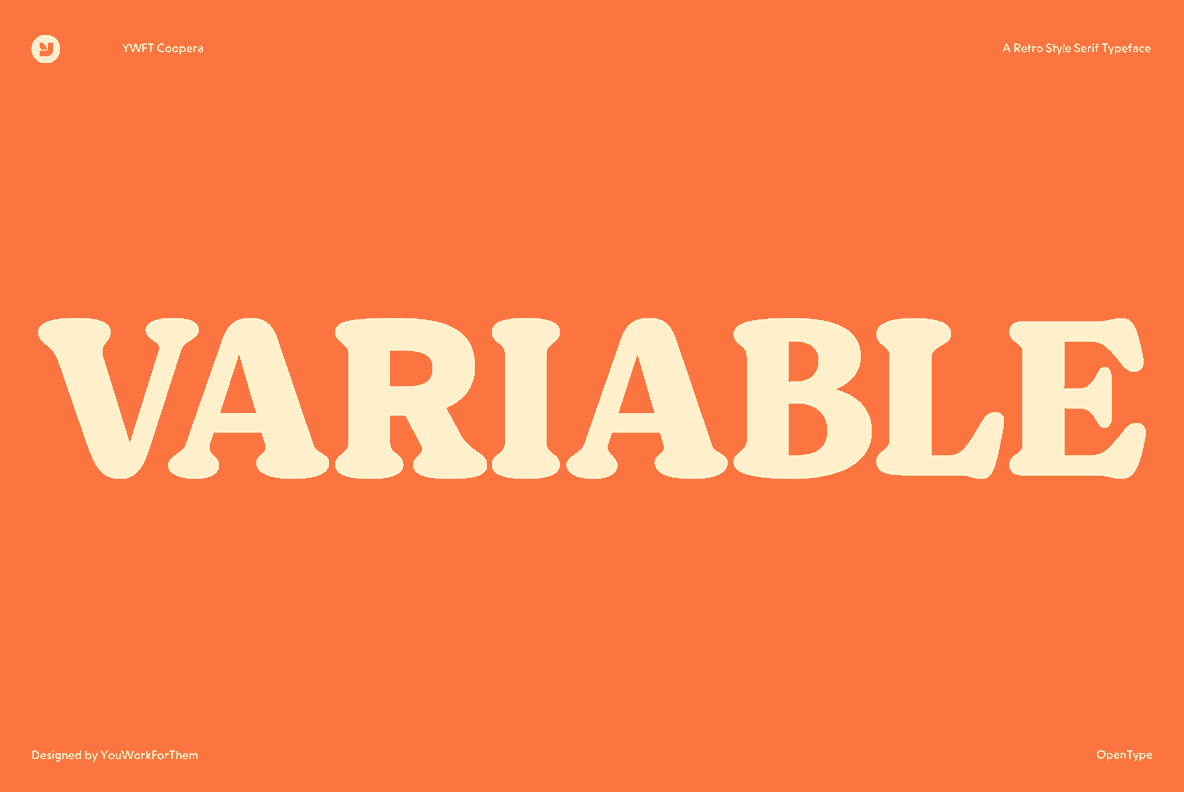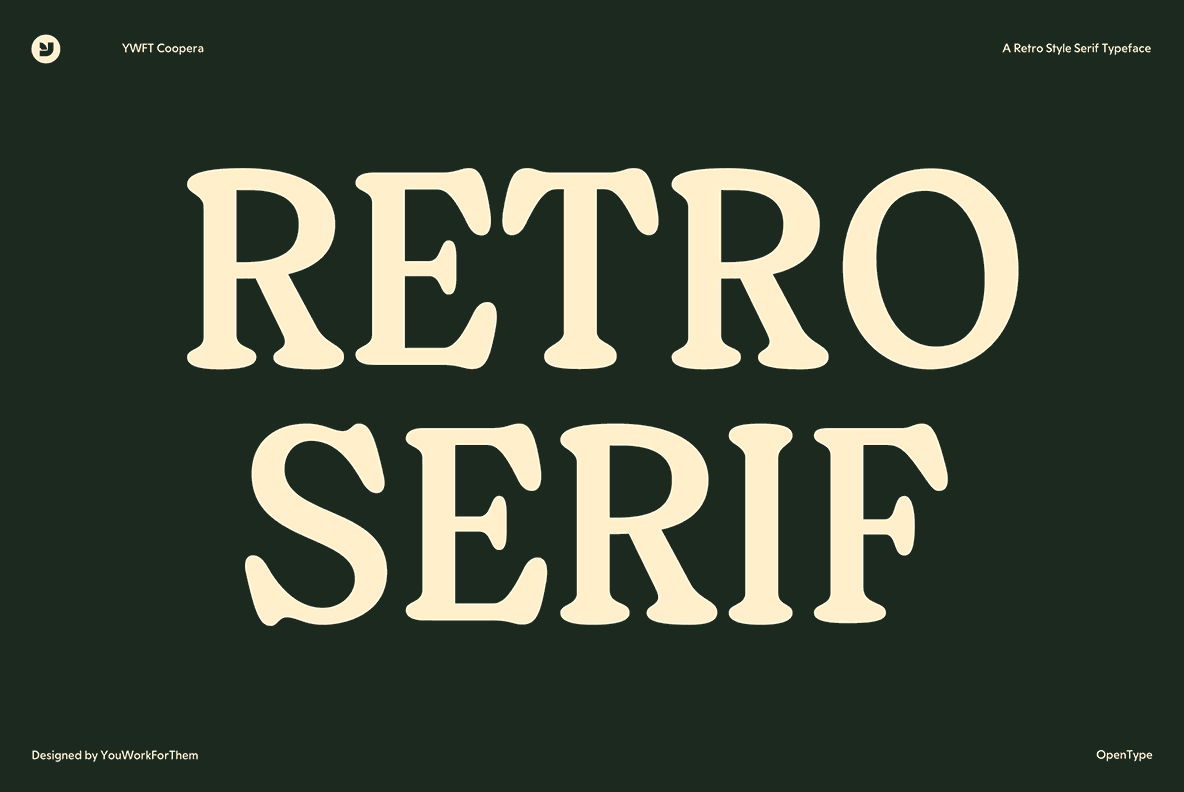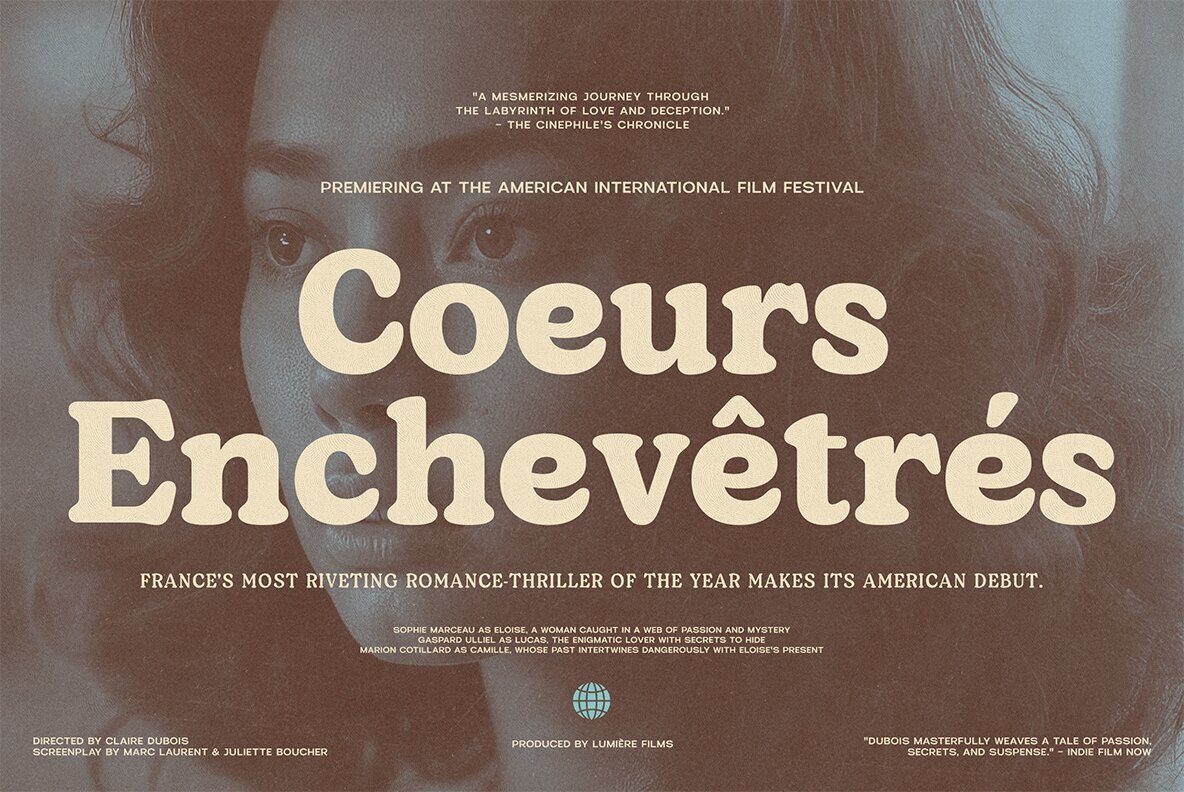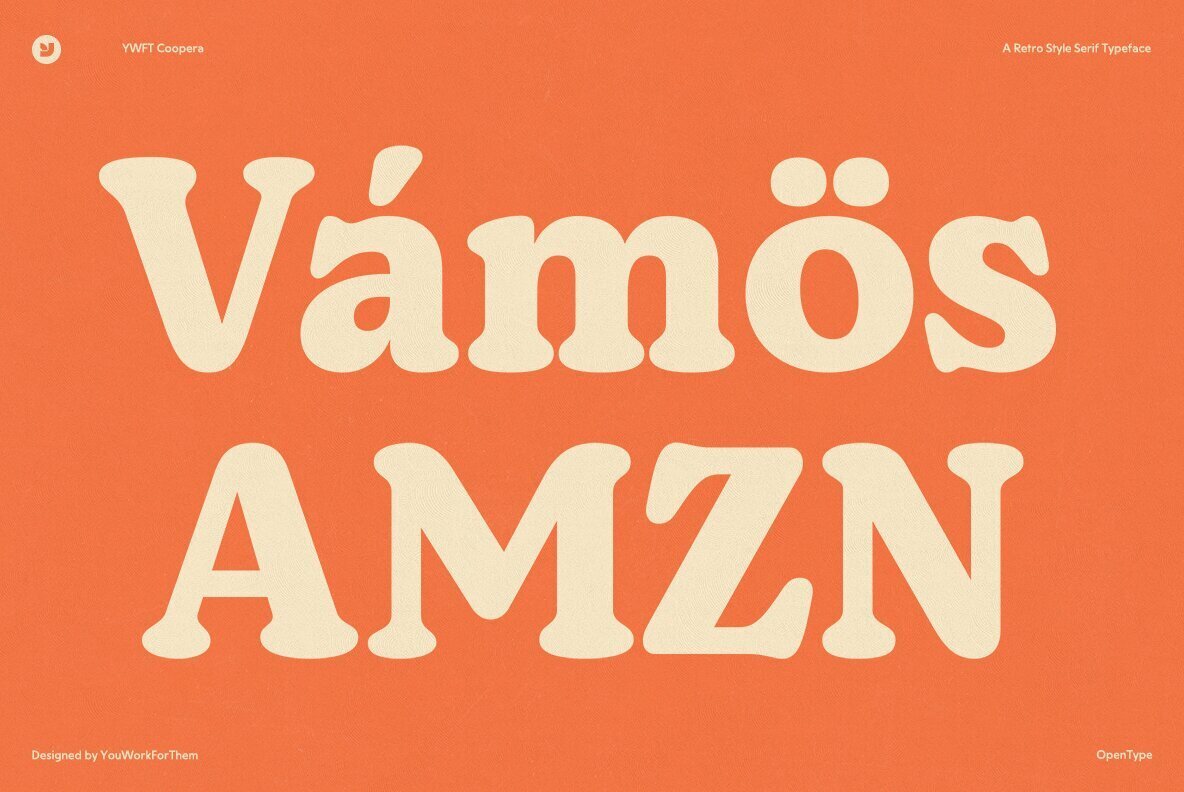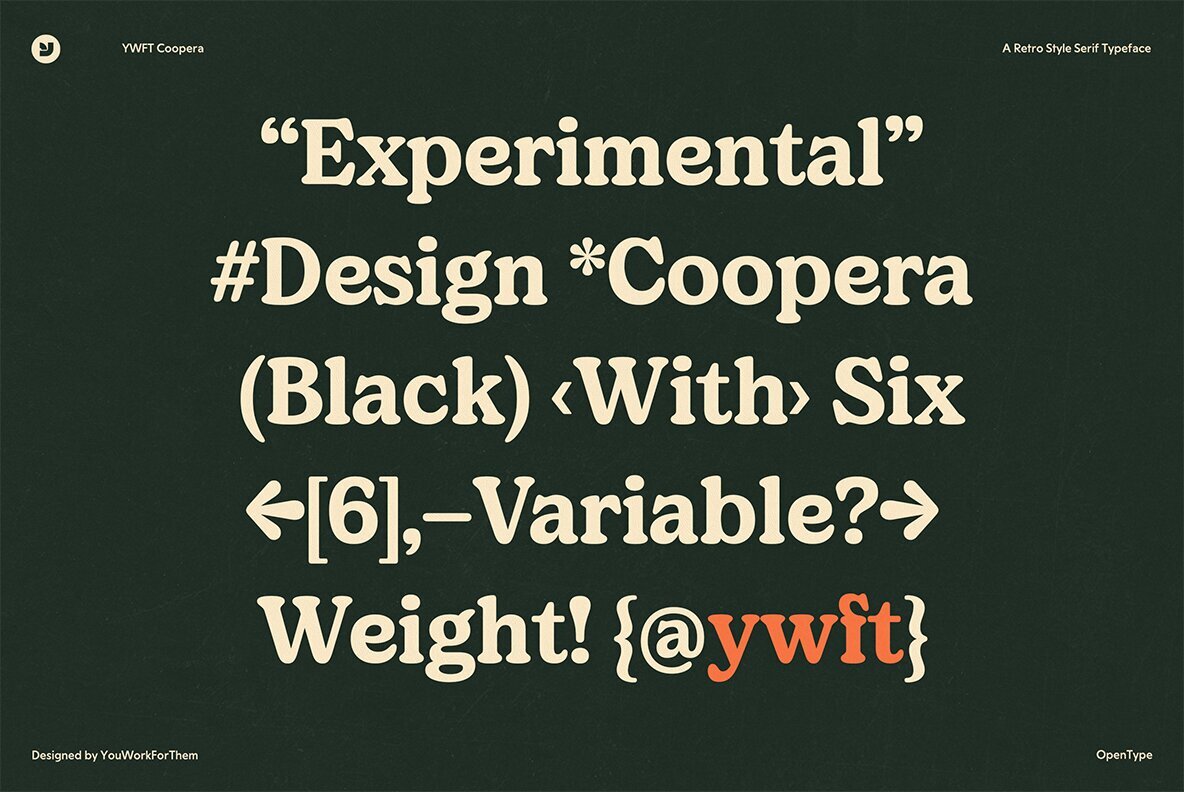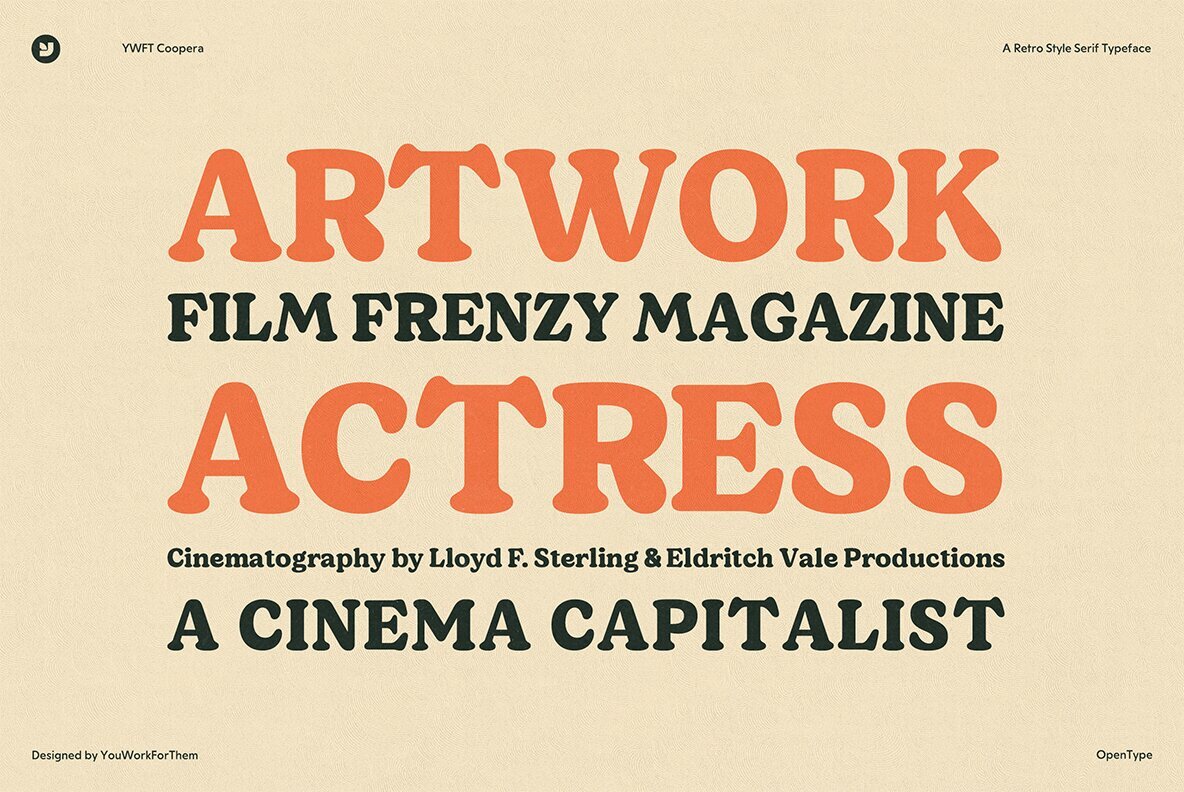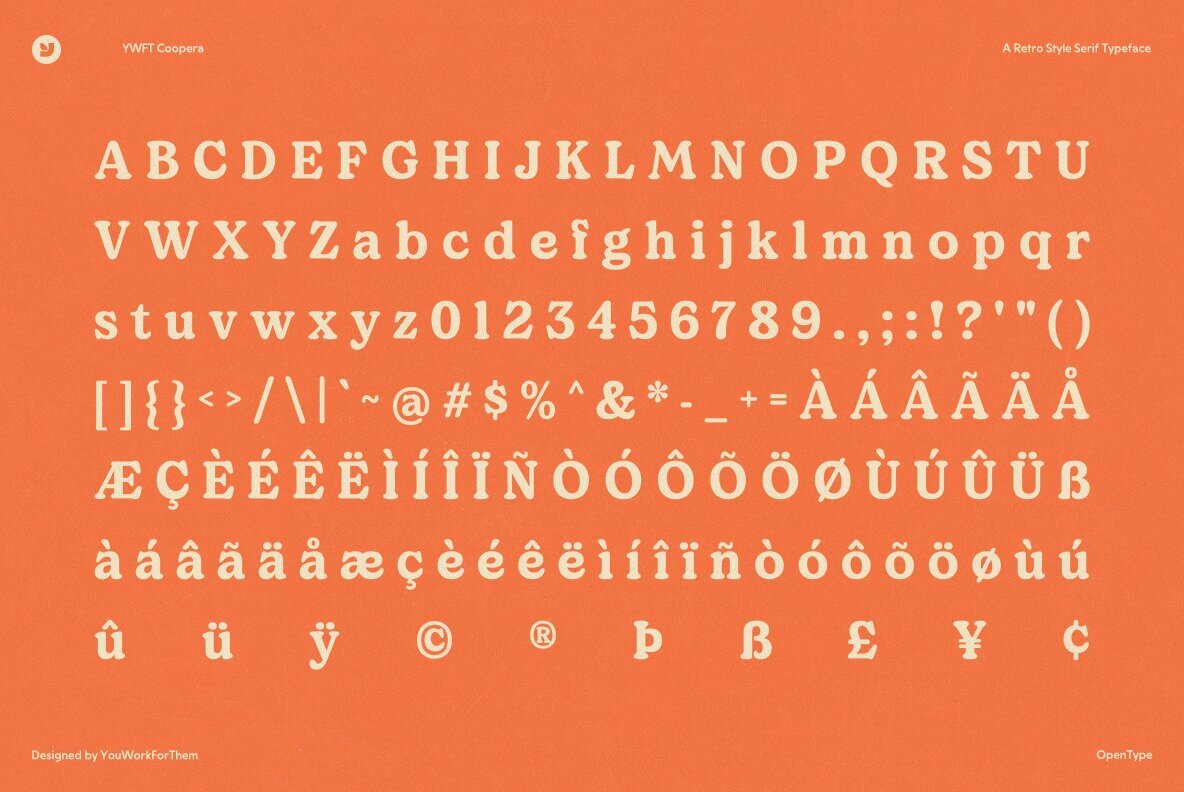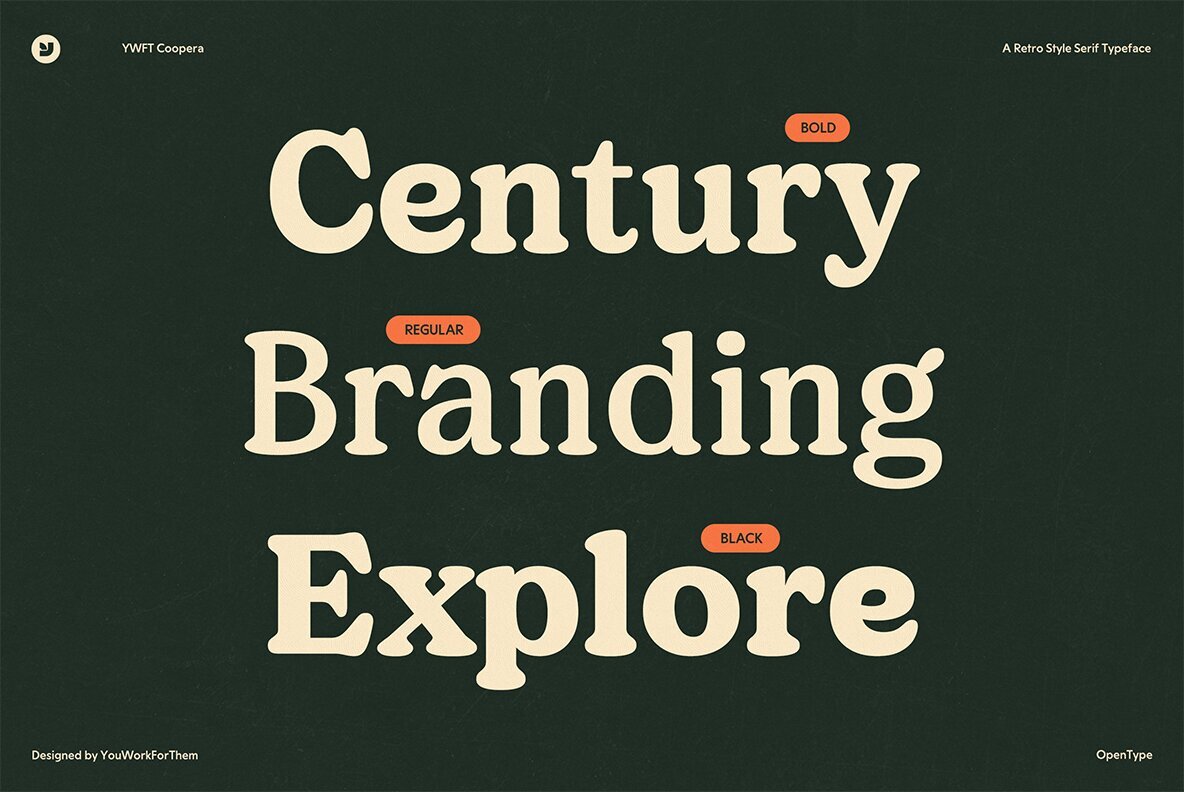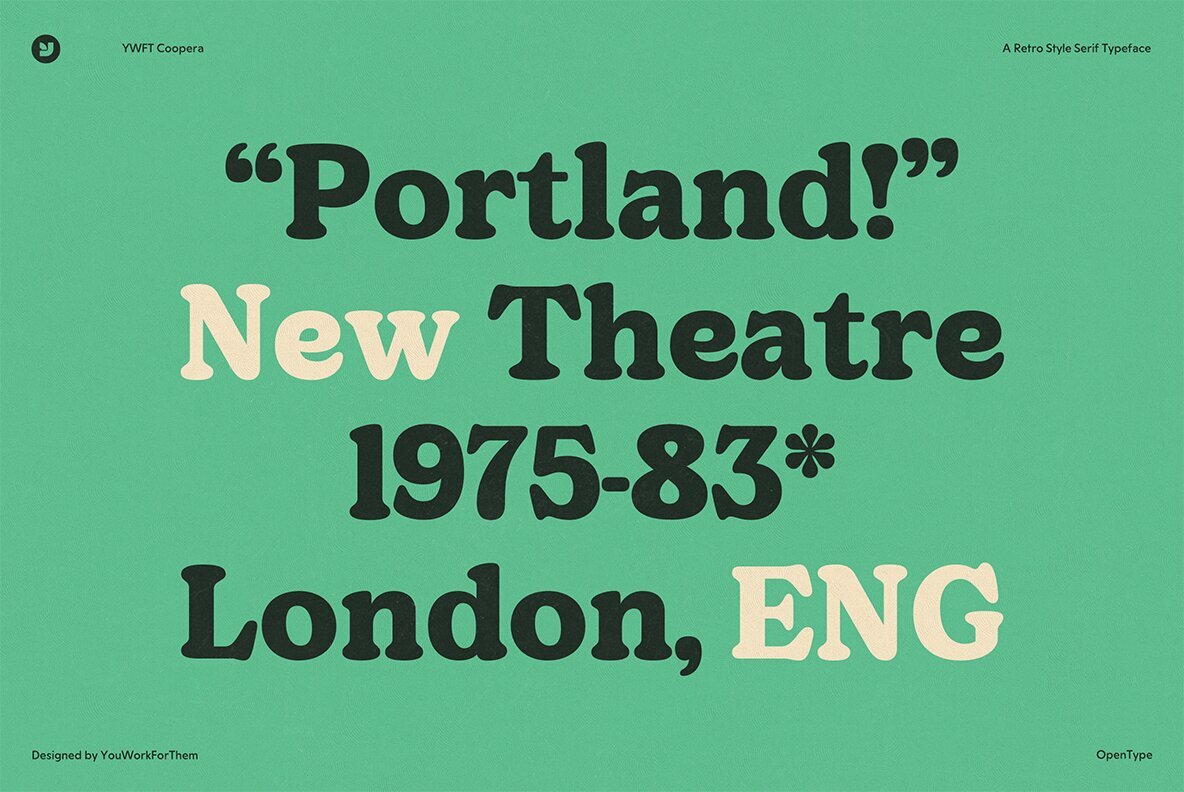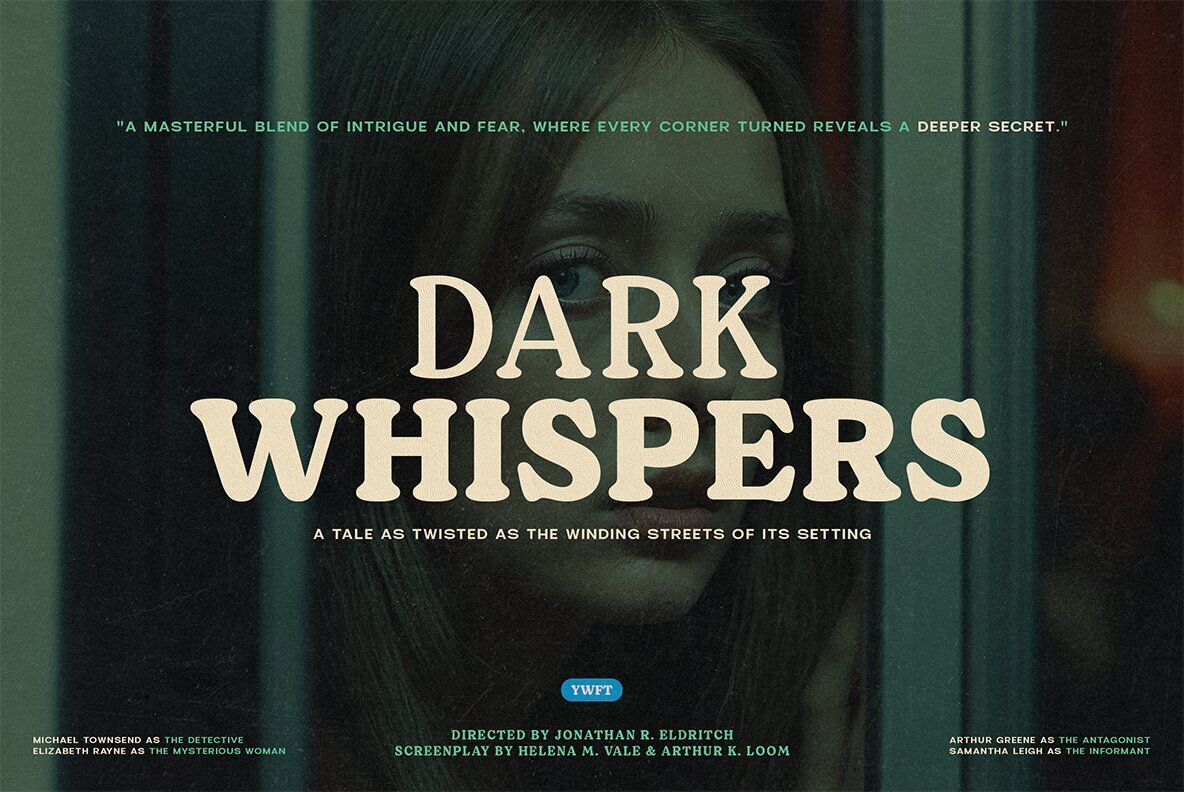
YWFT Coopera Font
Cooper, a font deeply embedded in the tapestry of typographic history, has long been celebrated for its playful serifs and lively character that capture the optimism of the 1960s and 70s. The typeface graced everything from vibrant album covers to whimsical children's books, cementing its status as a beloved icon. With a nod to this storied legacy, YWFT Coopera by YouWorkForThem injects new life into Cooper with a modern twist. This reinterpretation incorporates thoughtfully designed features such as alternates, style sets, and ligatures, giving designers a versatile tool that seamlessly bridges tradition and innovation. Offered in five distinct weights, YWFT Coopera effortlessly blends the nostalgic charm of retro design with contemporary aesthetics. It enhances diverse projects, from artisanal branding to sophisticated editorial layouts, offering a harmonious balance of the familiar and the novel. YWFT Coopera is available with straightforward licensing, allowing creative professionals to explore its potential without ongoing fees. Its presence in your toolkit guarantees timeless elegance, ready to elevate both personal and commercial projects.YWFT Coopera: A Modern Classic
Reintroducing Cooper Through YWFT Coopera
Time-Transcending Elegance